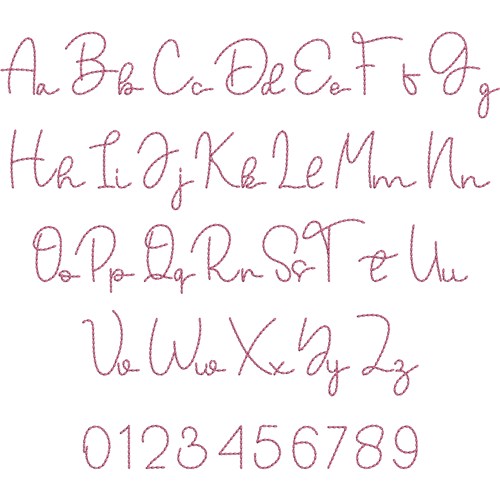
Chunky Curl Script Embroidery Font - Flowing Cursive Handwriting - Home Format - PES, DST & 7 formats by Satin Stripes and other embroidery fonts available at EmbroideryDesigns.com.
Cursive script style machine embroidery font perfect for personalized projects like home textiles and clothing. Includes numbers with flowing curves, available in PES, DST & 7 other formats.